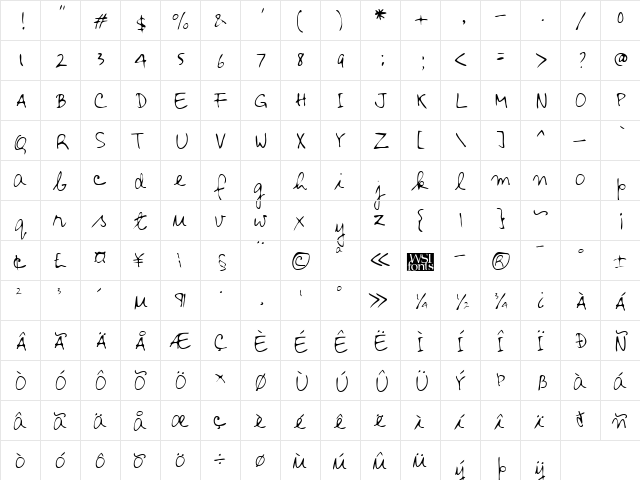
JamesHand Regular
Design Context for JamesHand Typeface
JamesHand brings a calligraphic fluidity to the page — its connecting strokes and expressive curves give it an unmistakably human quality.
Font Pairing: Combine JamesHand with a simple geometric sans for maximum contrast — the tension between flowing curves and clean structure is a classic typographic pairing.
Pro Tip: Use JamesHand for short runs of text — names, titles, or taglines. Extended body copy in script faces tires the eye quickly.